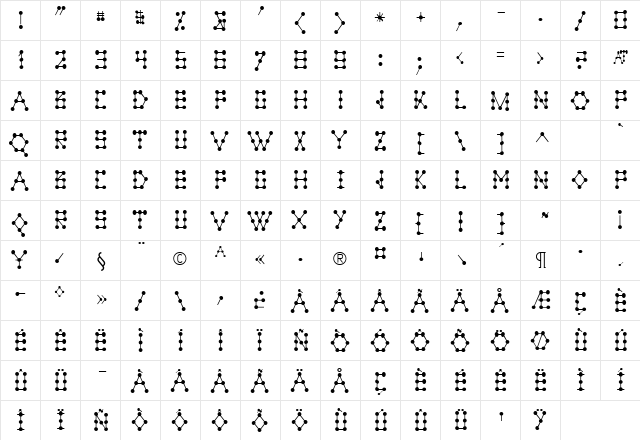
Tinkerer Regular
Design Context for Tinkerer Typeface
Tinkerer is a composed and adaptable typeface that performs quietly and consistently across a wide range of design contexts.